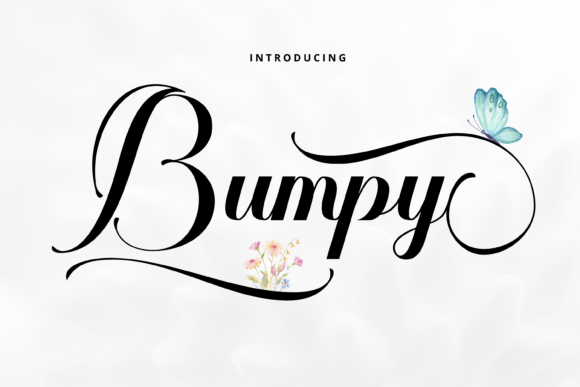
The Bumpy Font: Elevating Designs with Modern Calligraphy
Have you ever been in the middle of a design project, and suddenly, you’re stuck on finding the perfect font? I recall a recent experience where a client requested a unique, elegant, yet playful style for their wedding invitation. After scouring through numerous font options, I stumbled upon Bumpy – a modern calligraphy font that instantly caught my attention. Its bold yet soft characters brought my design to life, and I knew I had found the perfect fit.
An Honest Review of Bumpy Font
What I Love About Bumpy ✨
- ✅ Unique and Authentic Style: Bumpy’s modern calligraphy gives designs a warm, confident impression that’s hard to replicate with other fonts.
- ✅ Elegant yet Playful: This font strikes the perfect balance between sophistication and playfulness, making it suitable for various creative projects.
- ✅ Versatile: From invitations and posters to branding, packaging, and print-on-demand products, Bumpy can elevate any design.
- ⚠️ Limited Use in Small Sizes: Bumpy’s intricate details may not be as clear in very small font sizes, which could limit its use in certain applications.
- ⚠️ Requires Attention to Kerning: As with many script fonts, Bumpy may require manual kerning adjustments to ensure optimal readability and aesthetics.
The Backstory of Bumpy Font
Bumpy’s creation is inspired by the beauty of handwritten calligraphy. Its designer aimed to capture the fluidity and elegance of modern calligraphy while making it accessible and fun. The result is a font that embodies both sophistication and playfulness, perfect for a wide range of creative projects.
Q: What makes Bumpy Font unique?
A: Bumpy’s uniqueness lies in its blend of modern calligraphy with a playful, bold yet soft character set, making it versatile for various design applications.
Q: Does Bumpy support OpenType features?
A: Yes, Bumpy supports OpenType features, allowing designers to access a range of glyphs and stylistic alternates to enhance their typography.
Q: Is Bumpy suitable for body text?
A: While Bumpy can be used for longer texts, its intricate design works best in headlines or short paragraphs. For body text, a simpler font might be more readable.